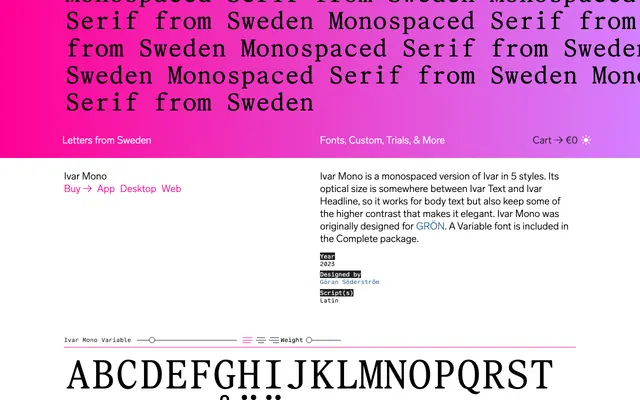
Ivar Mono
A monospaced serif by Göran Söderström, spun off from the Ivar family with contrast pitched between its text and headline optical sizes.
Derived from Göran Söderström's Ivar typeface, this monospaced variant was originally designed for GRÖN and arrives in five weights from Light to Black, with a variable font included in the Complete package. The optical sizing sits deliberately between Ivar Text and Ivar Headline, giving it enough contrast to feel elegant while remaining workable at body text sizes. Its extended Latin character set covers a wide range of European languages, and the inclusion of fractions, super- and subscripts, and currency symbols makes it well suited to technical and editorial work alike.
A monospaced serif explicitly described as such by the foundry, derived from the Ivar serif family with optical sizing balanced between text and display contrast.